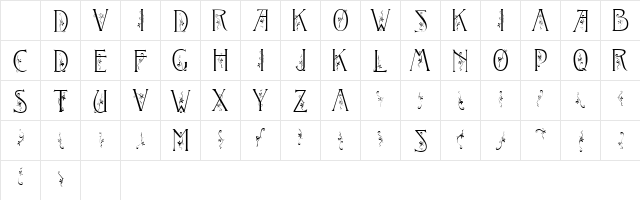
Complete Tendril Medium glyph index. Displaying only characters natively supported by Tendril Medium font.
Tendril is a composed and adaptable typeface that performs quietly and consistently across a wide range of design contexts.